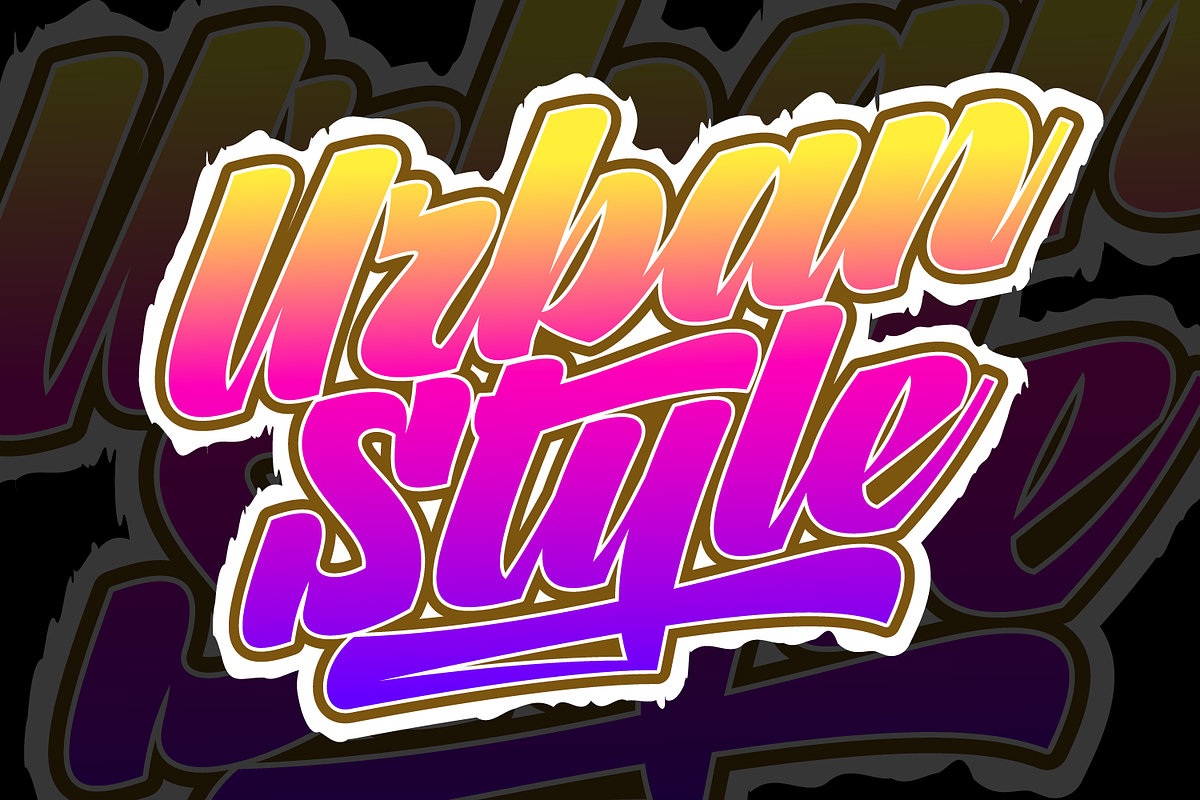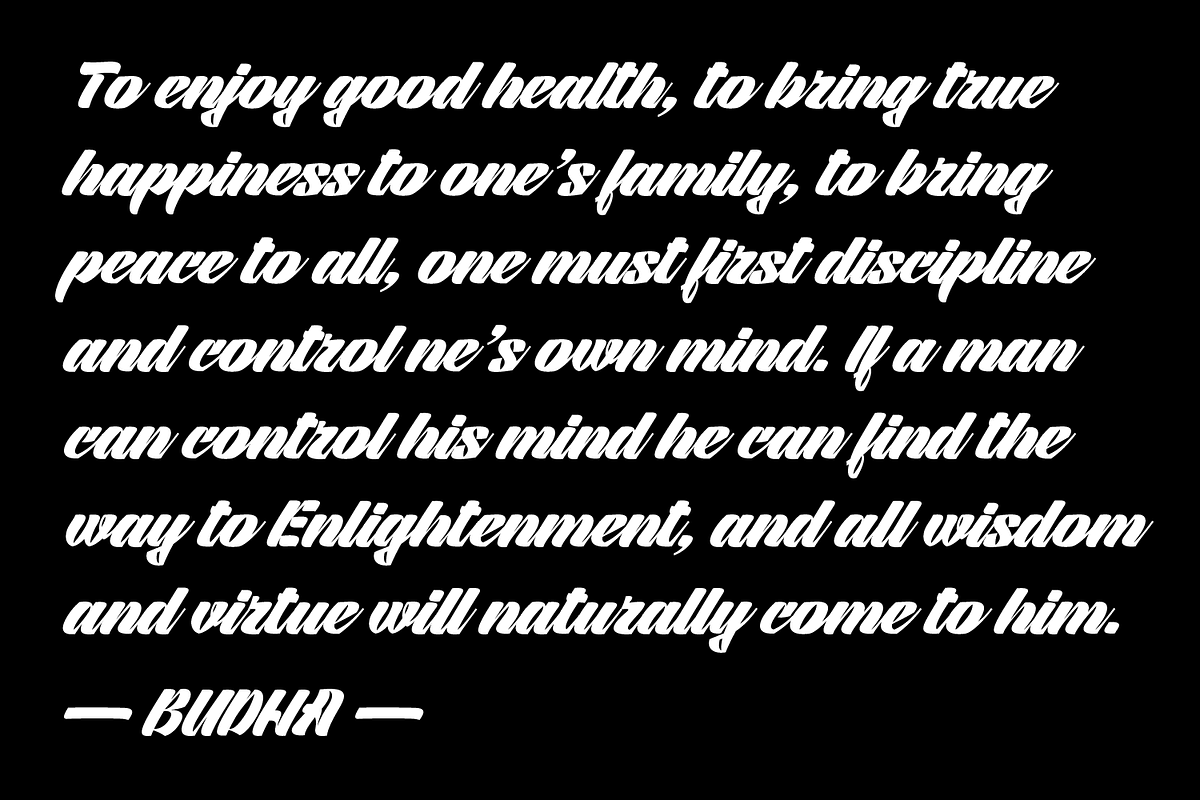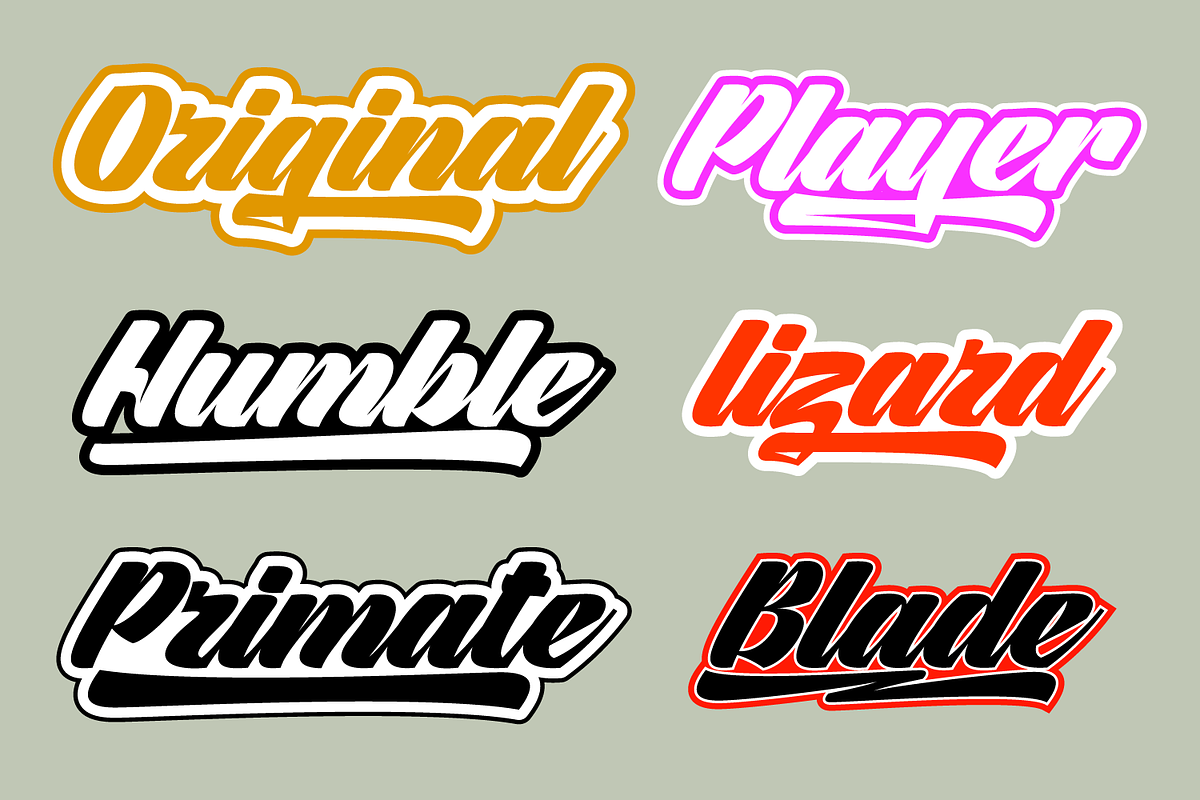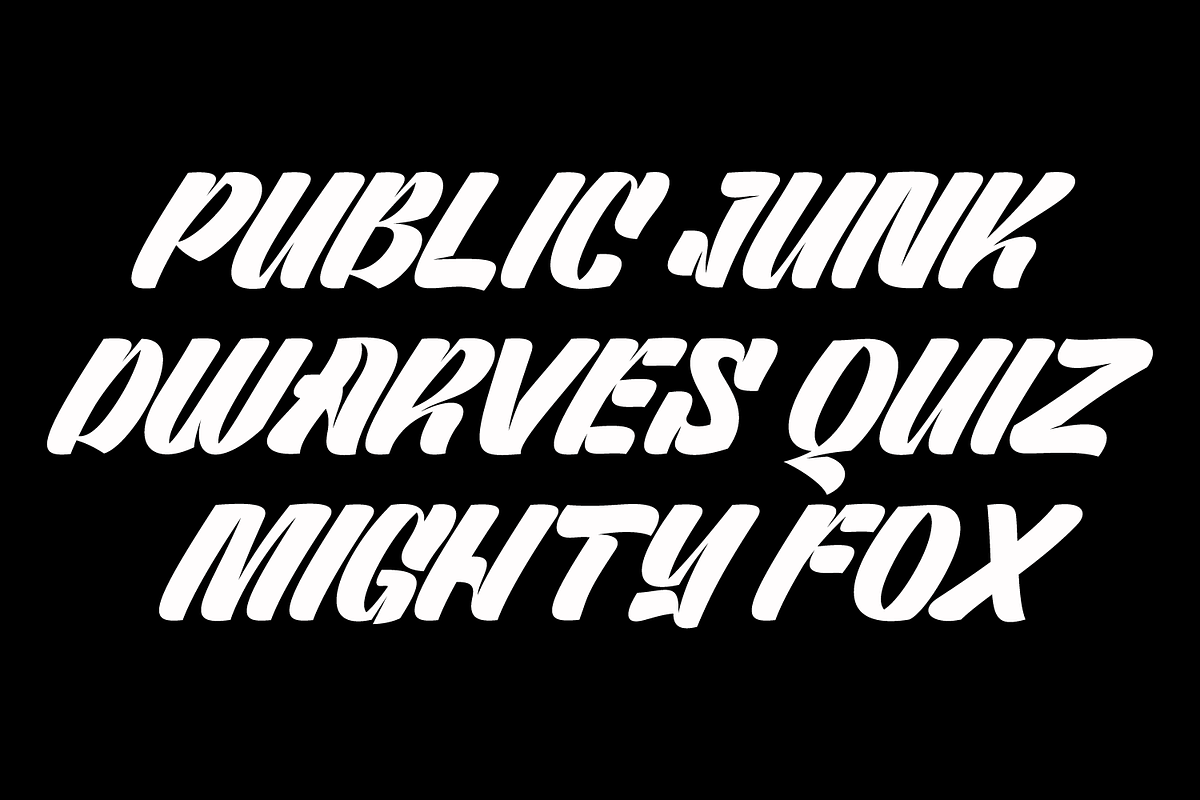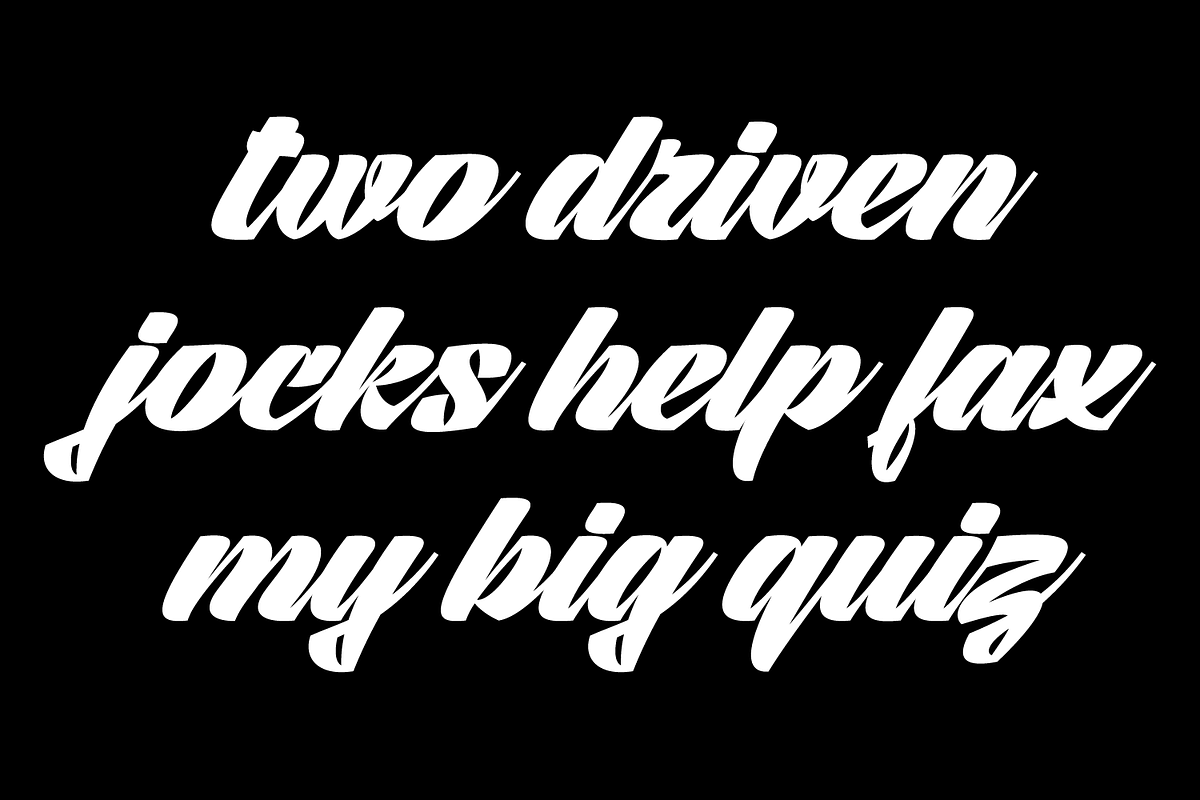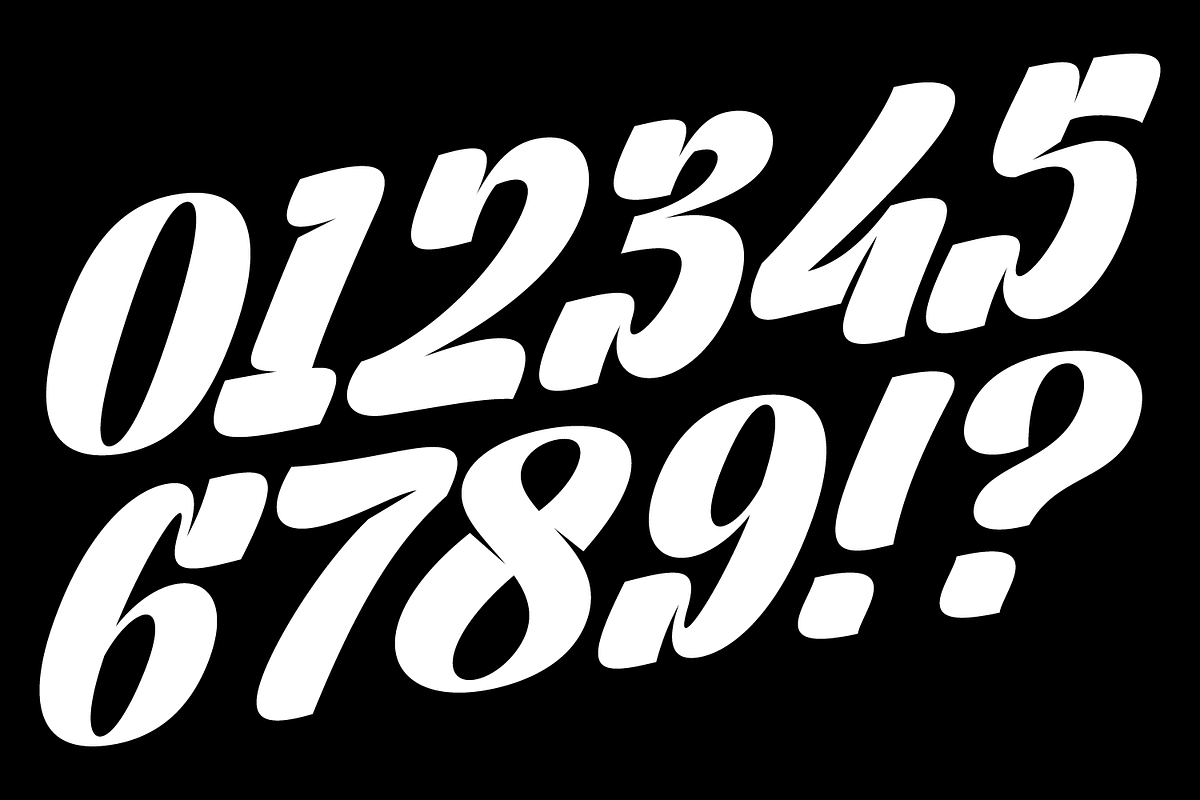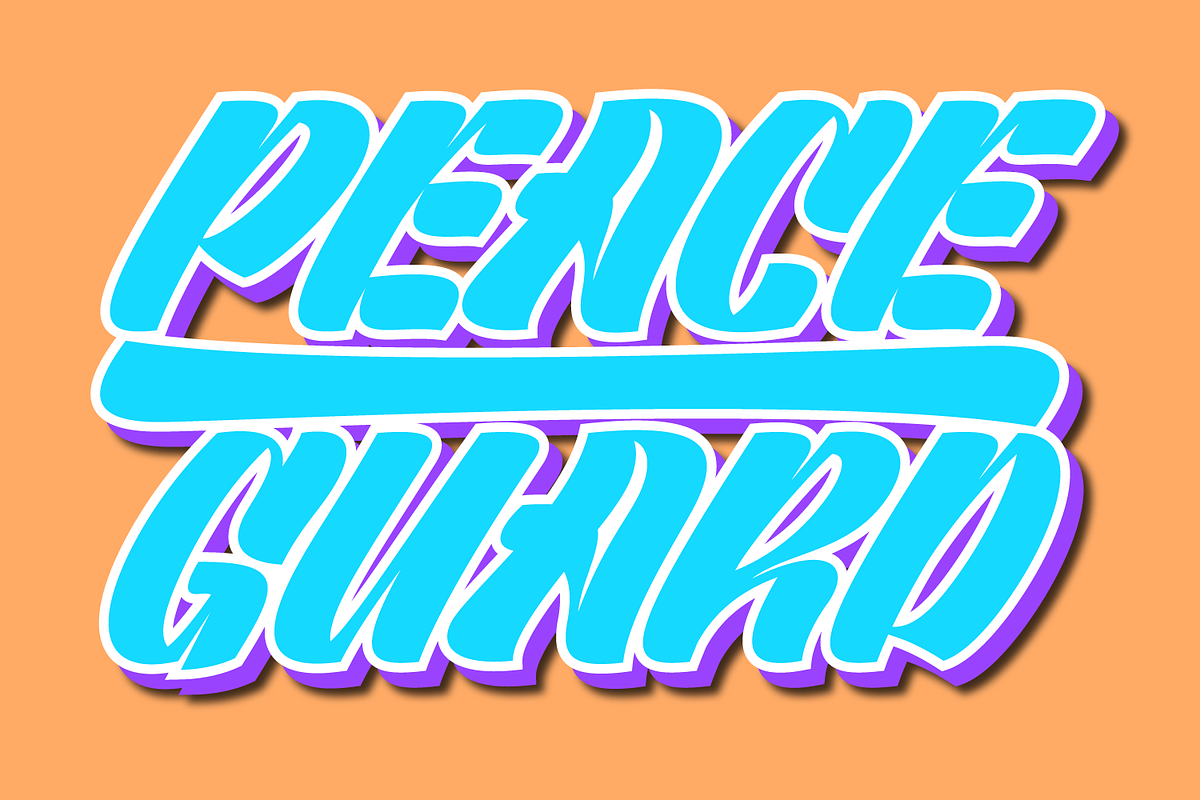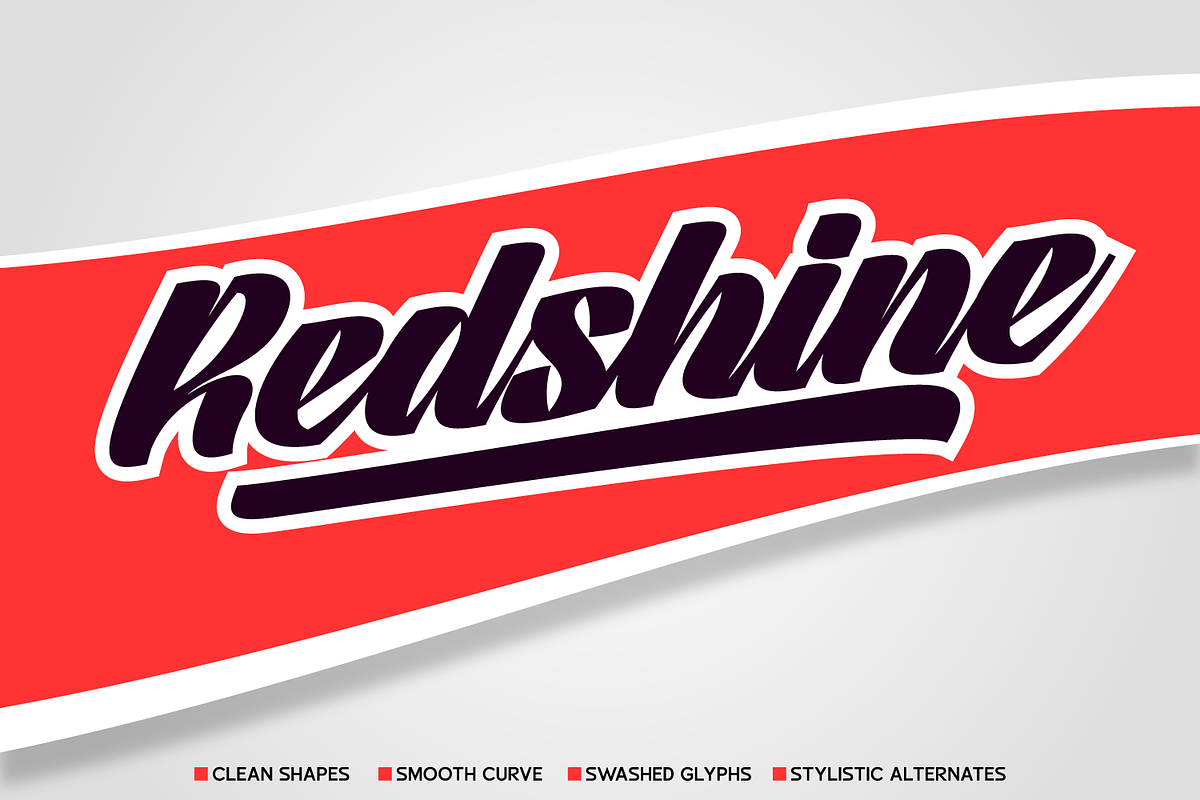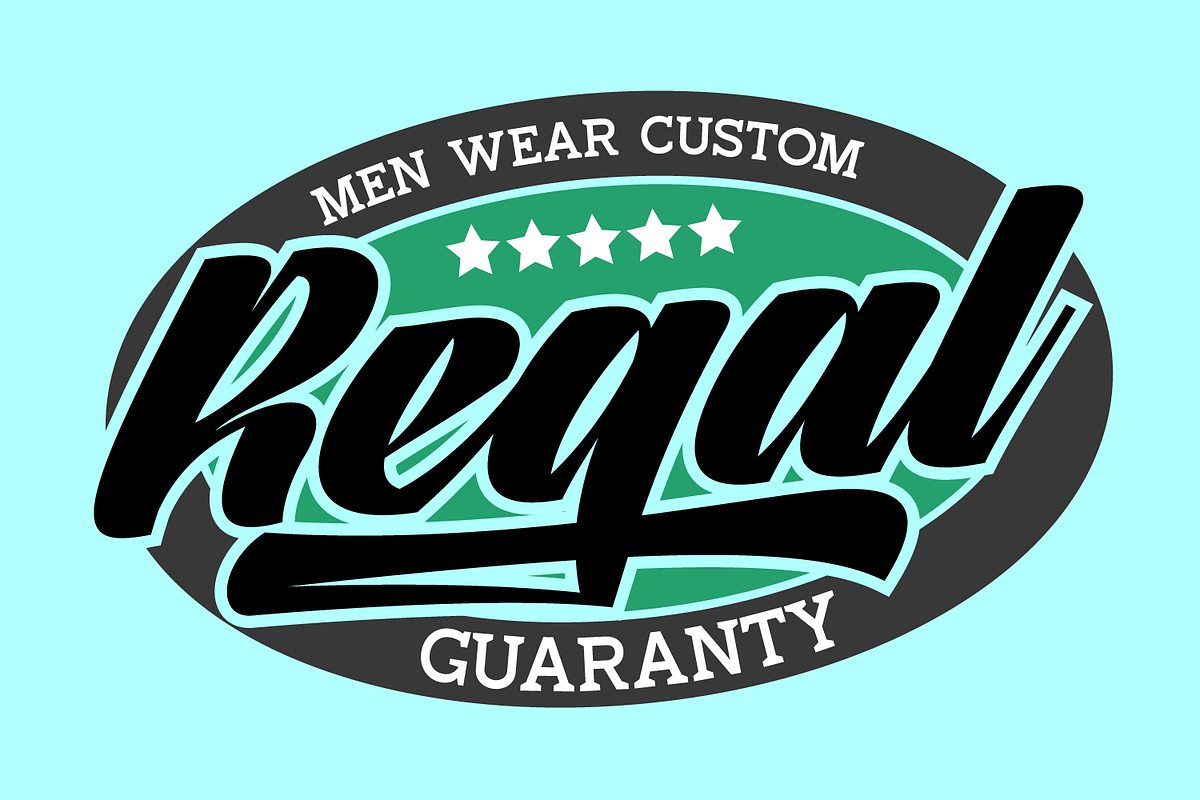
Redshine - Strong Bold Script
Redshine is a neat and bold script font. It has swash glyphs and alternate characters which will give you convenience when choosing a character for each design project. This font is PUA encoded which means you can access all of the glyphs and swashes with ease.